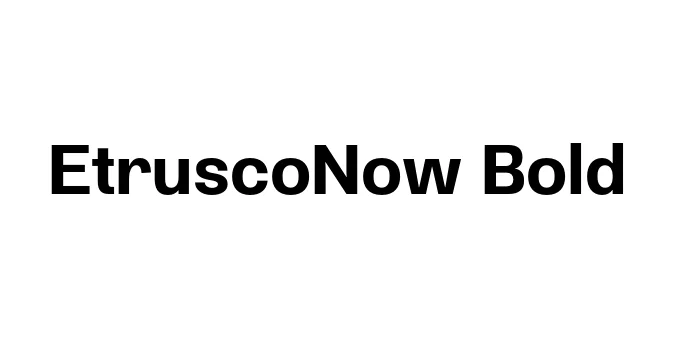
EtruscoNow Bold
Designed by Cosimo Lorenzo Pancini, Mario Perbene
| Category | Sans-serif / Grotesque |
| Designer | Cosimo Lorenzo Pancini, Mario Perbene |
| Similar Fonts | Venus, Trade Gothic, Akzidenz-Grotesk, Helvetica |
EtruscoNow Bold is a contemporary revival of the classic Etrusco typeface, originally released by the Nebiolo foundry in the early 20th century. This typeface family reflects the robust and functional spirit of early grotesque models, reimagined for the digital age by the Zetafonts team. It balances Italian typographic tradition with a modern industrial aesthetic, offering a clean yet characterful appearance that bridges the gap between heritage and innovation.
The Bold weight is specifically engineered for high-impact visual communication. It features sturdy stems and optimized kerning, making it an excellent choice for designers who need a font that conveys authority and stability without sacrificing elegance. Whether used in digital interfaces or traditional print, EtruscoNow Bold maintains exceptional clarity and a professional, timeless feel that pays homage to its metal-type origins.
EtruscoNow Bold Best Uses
Perfect for strong, authoritative titles in magazines and websites.
Ideal for creating impactful logos and consistent corporate visual identities.
Excellent for high-contrast layouts and magazine cover features.
Highly effective for posters, billboards, and social media graphics.